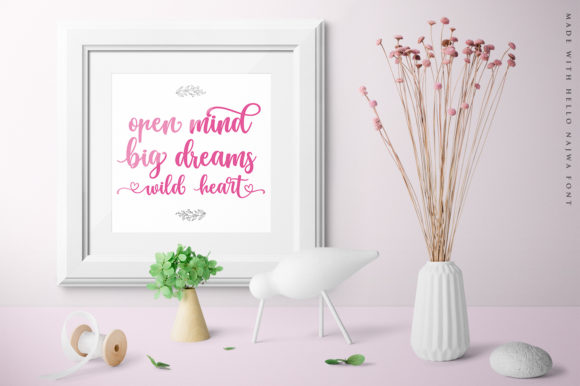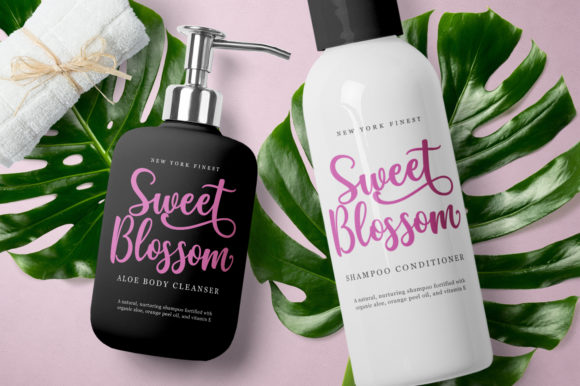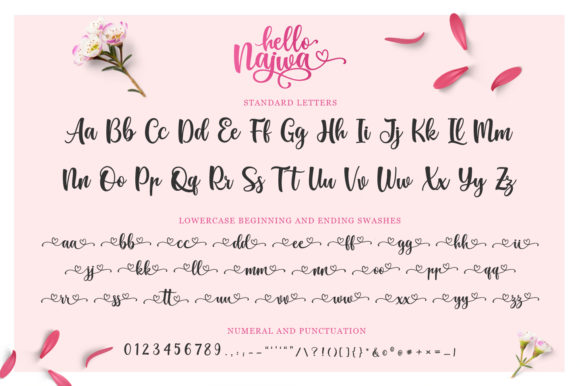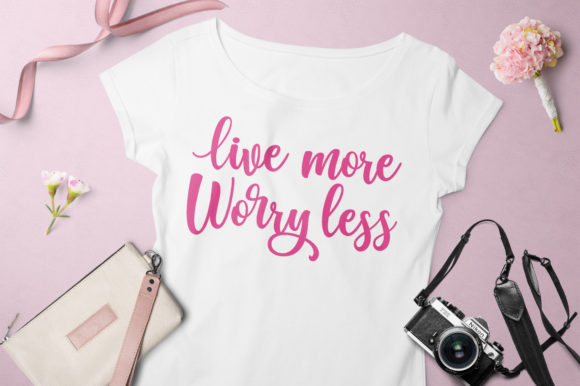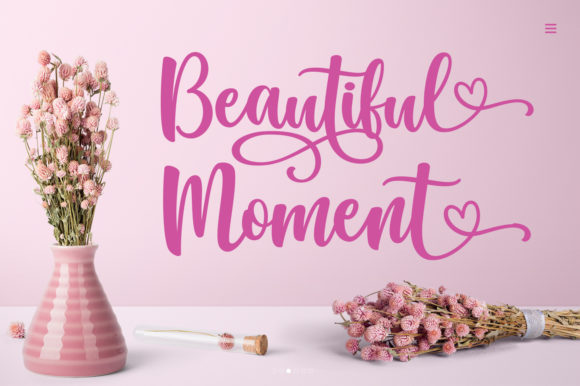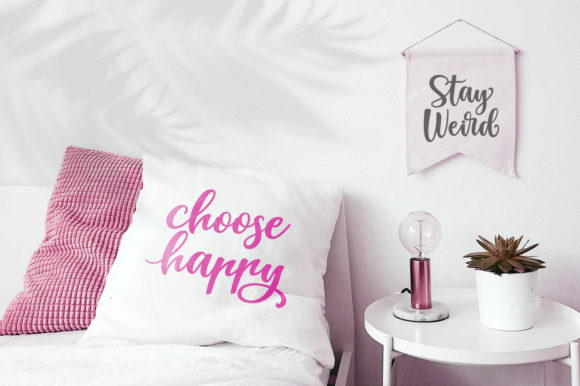
The Perfect Match for Your Crafting Projects
You know that moment when you’re brainstorming ideas for your next crafting project, and suddenly, a spark of inspiration hits you? The creative juices start flowing, and you can’t wait to bring your vision to life. That’s exactly what happens when you discover the right font – the one that sets the tone for your entire project. For many designers, the Hello Najwa Font is that perfect match.
With its romantic swashes and cute hearts, the Hello Najwa Font is designed specifically for crafting projects that require a touch of whimsy and charm. Whether you’re creating invitations, planners, or digital art, this font is sure to add a personal touch that makes your work stand out. As a valuable asset for designers, the Hello Najwa Font offers endless possibilities for creative expression.
Hello Najwa Font Key Features
- Font Family: Hello Najwa is a script font family designed for elegant and modern typography. It is available in various weights and styles to cater to different design requirements.
- Character Set: Hello Najwa supports a comprehensive character set, including Latin, Cyrillic, and Greek alphabets, making it suitable for multilingual designs.
- Unique Characteristics: The font’s unique characteristics include its elegant and flowing connections, making it perfect for creating beautiful and sophisticated designs.
Hello Najwa Font Review
Overall, I’d say the Hello Najwa Font is a great addition to any designer’s toolkit. ✨ It’s a beautifully crafted, elegant script font that’s perfect for creating a luxurious and sophisticated look in your designs.
- One of the standout features of Hello Najwa is its excellent legibility. The font is clear and easy to read, even at smaller sizes.
- It’s also highly versatile, and works well for a wide range of applications, from headings and titles to body text and logos.
- The font’s curves and flourishes add a touch of elegance and sophistication to any design, making it perfect for high-end brands and luxury products.
However, there are a few limitations to consider. ⚠️ The font may not be the best choice for designs that require a more playful or casual tone, as its elegance and sophistication may come across as too formal.
Overall, I’d highly recommend the Hello Najwa Font to any designer looking to add a touch of luxury and sophistication to their designs. With its excellent legibility, versatility, and elegant curves, it’s a great choice for a wide range of applications.
Tips for Getting the Most Out of the Hello Najwa Font
Here are some tips to help you get the most out of the Hello Najwa Font:
- Use the font in combination with other elegant fonts to create a sophisticated look.
- Use the font in conjunction with high-quality images to create a professional-looking design.
The Hello Najwa Font is suitable for a variety of design projects, including: